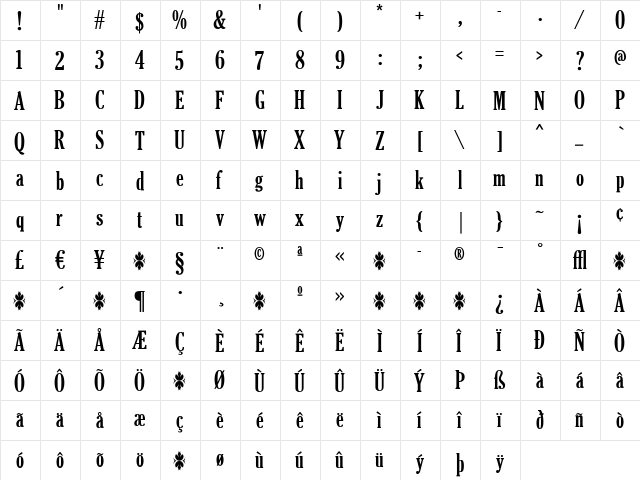
CheltenhamFB-BoldCondensed Regular Font Preview
Design Context for CheltenhamFB-BoldCondensed Typeface
CheltenhamFB-BoldCondensed takes a measured approach to typography — its balanced proportions and neutral character make it a reliable workhorse for both digital and print work. The heavy weight commands attention and anchors typographic hierarchies. Its narrow stance lets it pack a punch even in space-constrained designs.